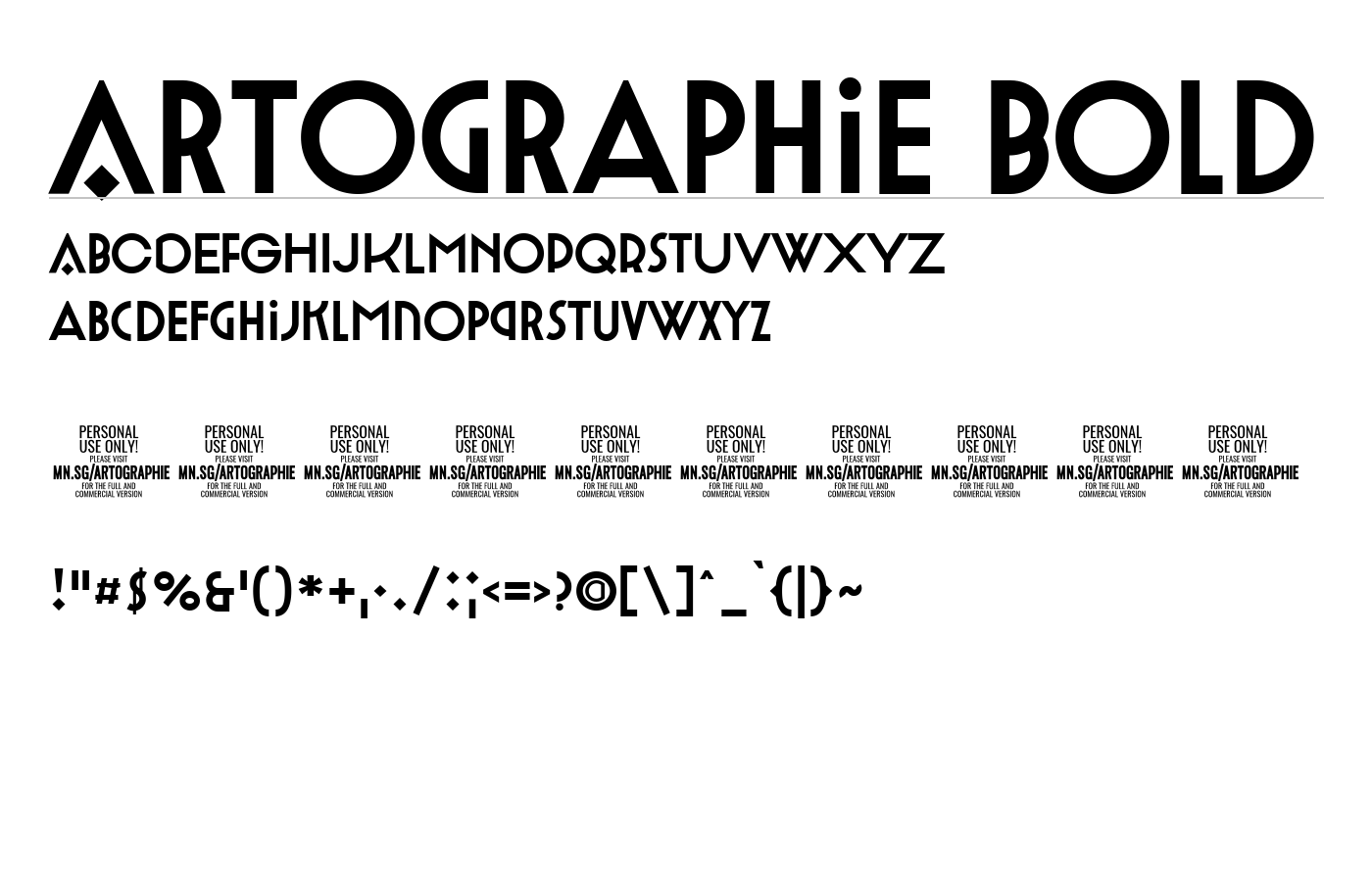
Artographie Bold is a distinctive sans serif font with a strong, bold weight and a modern, geometric style that features unique angular details and art deco influences. Its clean lines and sharp edges give it an elegant yet dynamic personality, making it ideal for eye-catching headlines, logos, and branding that aims to convey creativity and sophistication. This font works best in display settings where its bold and artistic forms can truly stand out.
Artographie Bold Font
About Artographie Bold Font
| Font family | Artographie Bold Font |